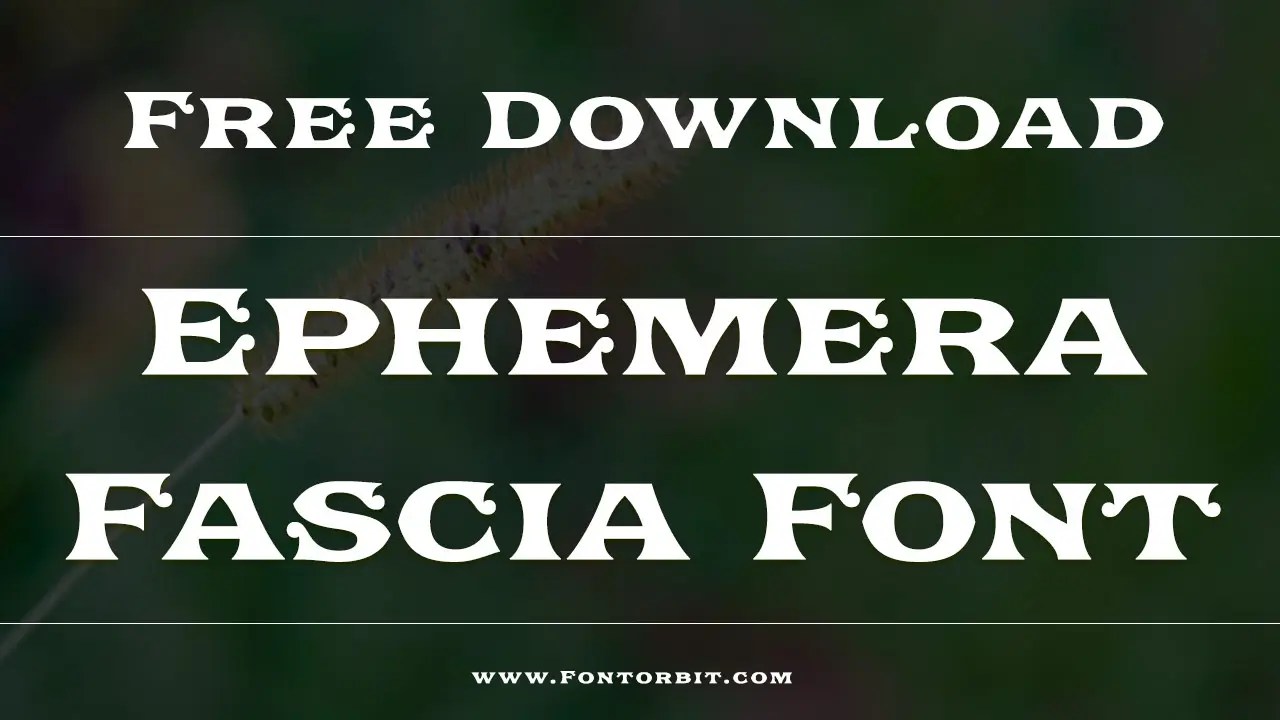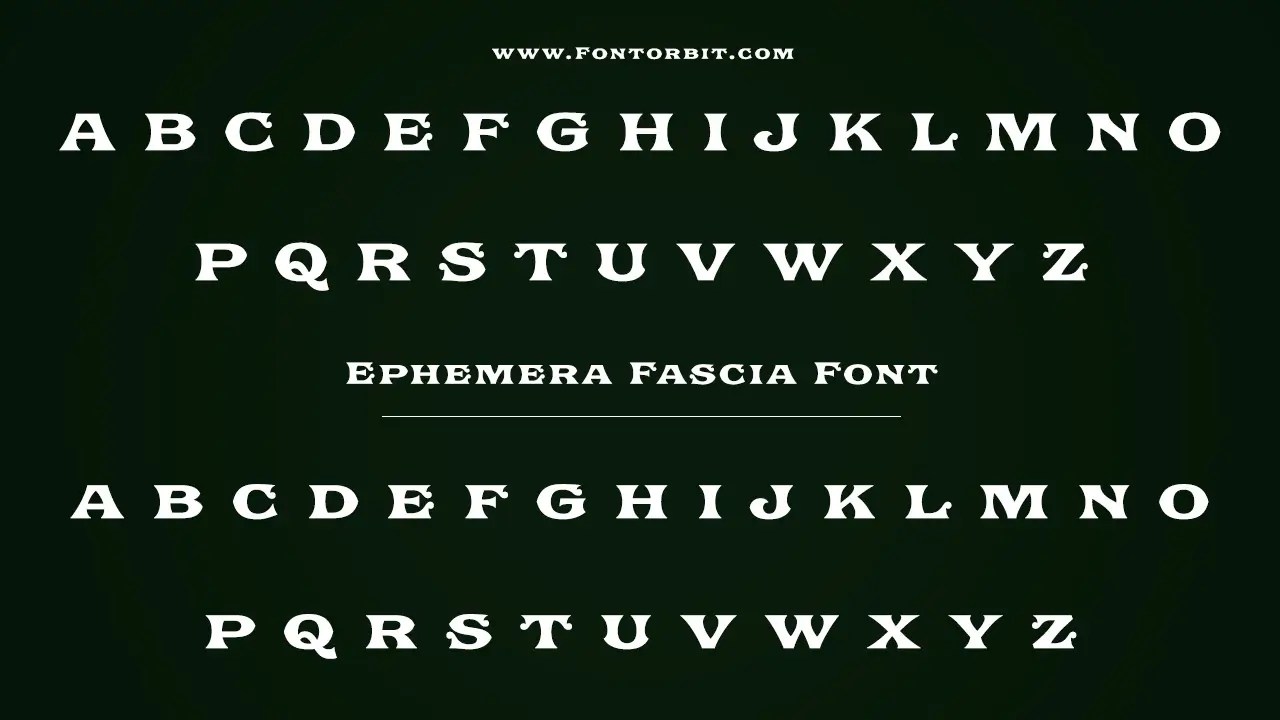
Typography is a key element in design, and Ephemera Fascia stands out as a vintage-inspired display typeface. Designed by Ilham Herry, this font captures the elegance of historical signage, making it ideal for logos, packaging, and branding. Whether you’re creating a poster, label, or website text, this font offers versatility and style.
- Vintage Aesthetic – Inspired by classic facade signs.
- Bold Serif Design – Ensures readability and impact.
- Versatile Applications – Suitable for branding, packaging, and print.
- Multi-Language Support – Features an extensive character map.
Ephemera Fascia Font Family
The font family includes multiple styles for layered effects:
- Ephemera Fascia Base
- Ephemera Fascia Outline
- Ephemera Fascia Shadow 1
- Ephemera Fascia Shadow 2
- Ephemera Fascia Inset
Where To Use Ephemera Fascia
This font is perfect for:
- Logos & Branding – Adds a classic, high-end feel.
- Posters & Flyers – Ideal for attention-grabbing headlines.
- Labels & Packaging – Complements retro and artisan designs.
- Website Design – Enhances digital branding with a vintage touch.
- Printed Materials – Works well for magazines, books, and newspapers.
If you’re looking for a retro-inspired serif font that enhances logos, packaging, and printed materials, Ephemera Fascia is a great choice. Its elegant structure and layered system provide designers with flexibility and creativity.
Its layered serif design, vintage look, and multi-format compatibility make it stand out.
Yes, it features a comprehensive character map with multilingual support.
It works best for branding, signage, logotype designs, and printed materials.
Yes, some free fonts share similar characteristics, but Ephemera Fascia’s layered styles make it unique.